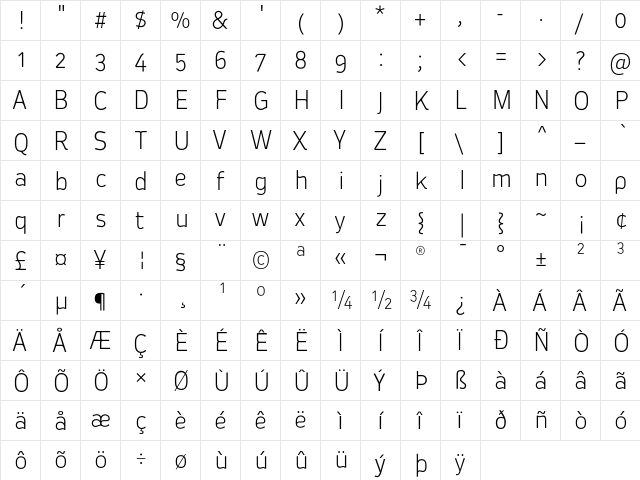
Oceania Display Light
Design Context for Oceania Display Typeface
Oceania Display is built around its visual character rather than neutral utility — its distinctive forms are designed to make an impression at display sizes. Its slender proportions lend an understated elegance to any composition.
Font Pairing: Pair with a clean neutral sans-serif for body copy to let Oceania Display's character lead without overwhelming the composition.
Pro Tip: Use Oceania Display exclusively at display sizes — it was designed to be seen, not read at length. Let a neutral companion handle body copy.